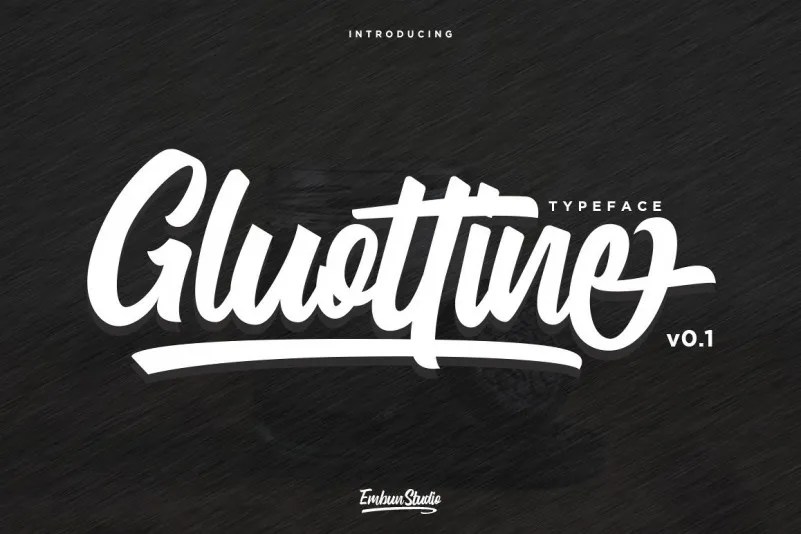
Gluottine Bold Script Font
Start the new day with a calligraphy script font, it is a typestyle for a wide variety of use it is very soft and has fast curves, while its low slant angle makes it very legible. Introducing Gluottine Font. It is designed and shared by EmbunStudio. Gluottine Bold Script is a modern calligraphy font that’s perfect for adding that classy vibe to your next craft. Get inspired by its timeless charm! It works perfectly for creative project such as logo, T-shirt / apparel, badge, invitation, packaging,headline, poster, magazine, greeting card, and wedding invitation. With bonus illustration in this package.